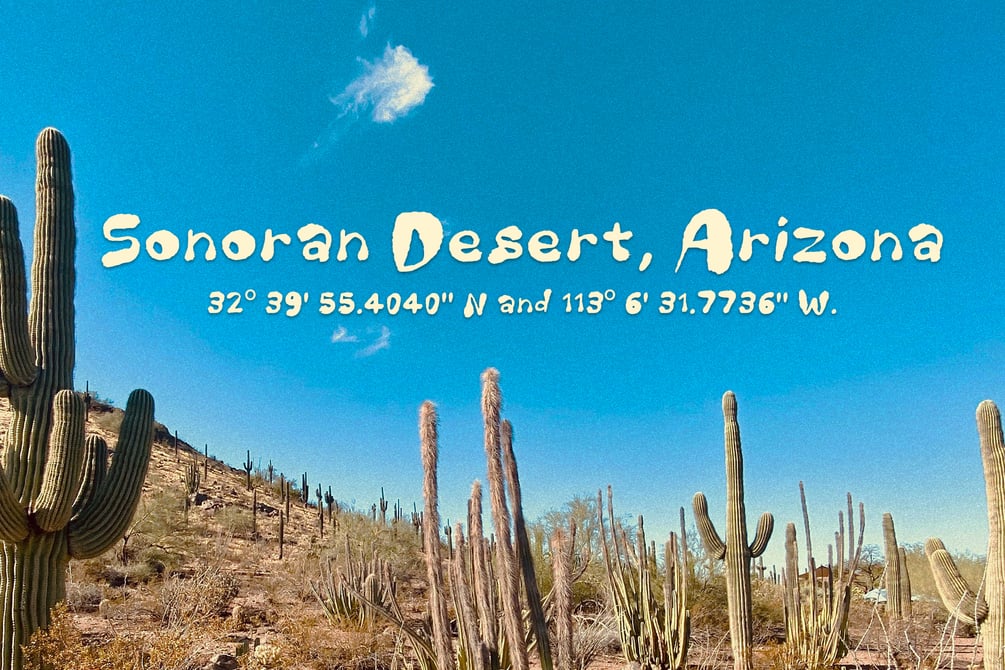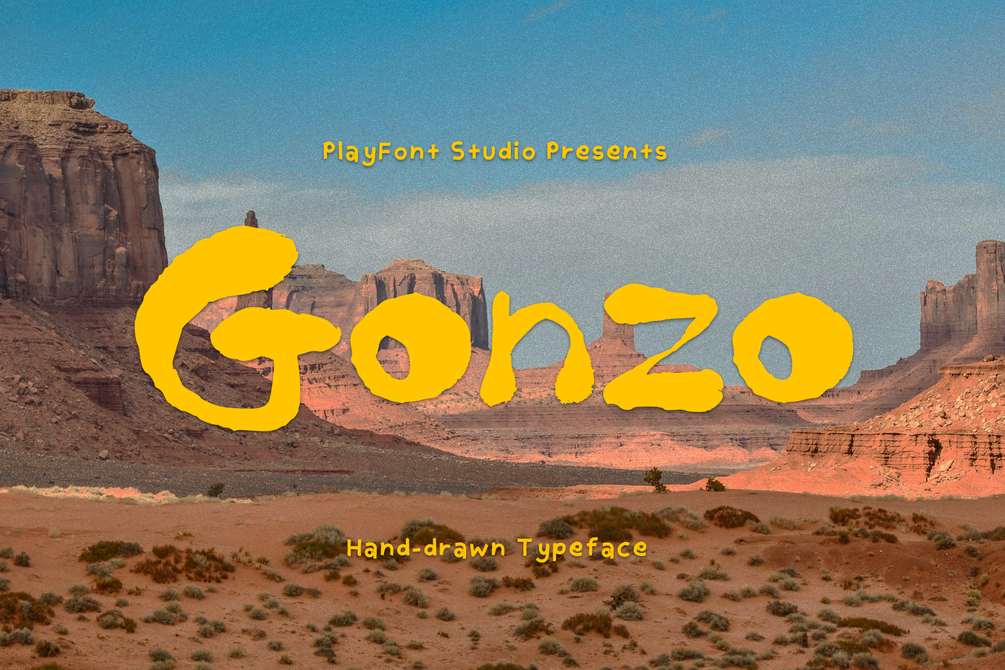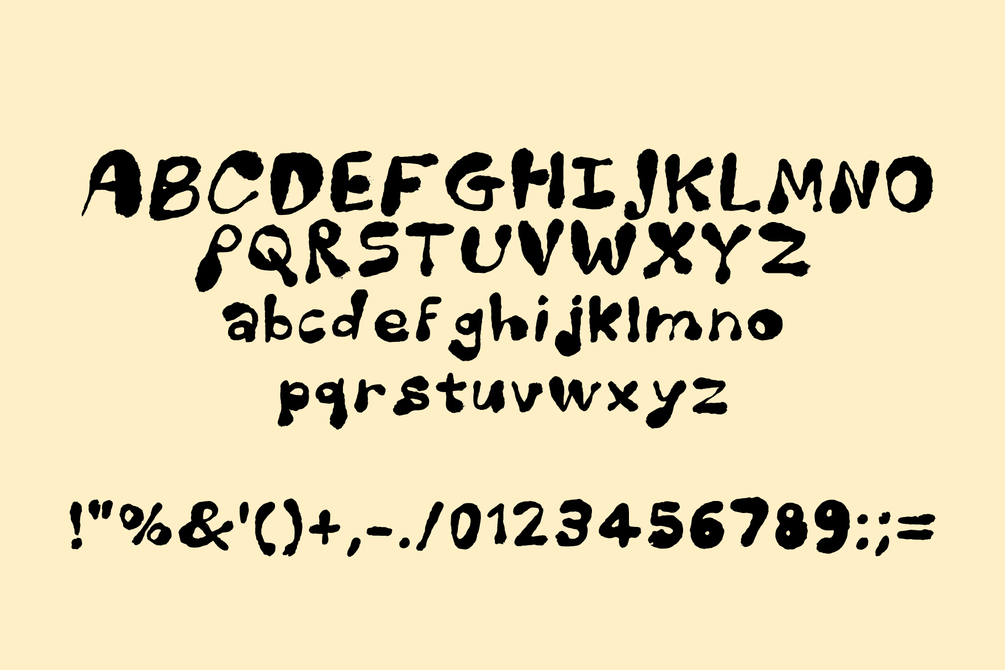
Gonzo - A Handmade Typeface
Gonzo, with its bold and expressive strokes, rides into the vast desert like a lone cowboy on a sun-scorched trail.
Gonzo is a bold and expressive typeface that exudes confidence and creativity. Its hand-drawn aesthetic gives it an artistic flair, making it perfect for eye-catching designs. Let’s break down its features: Uppercase Letters: The uppercase letters are bold and black, commanding attention. Each character has a slightly irregular and dynamic style.